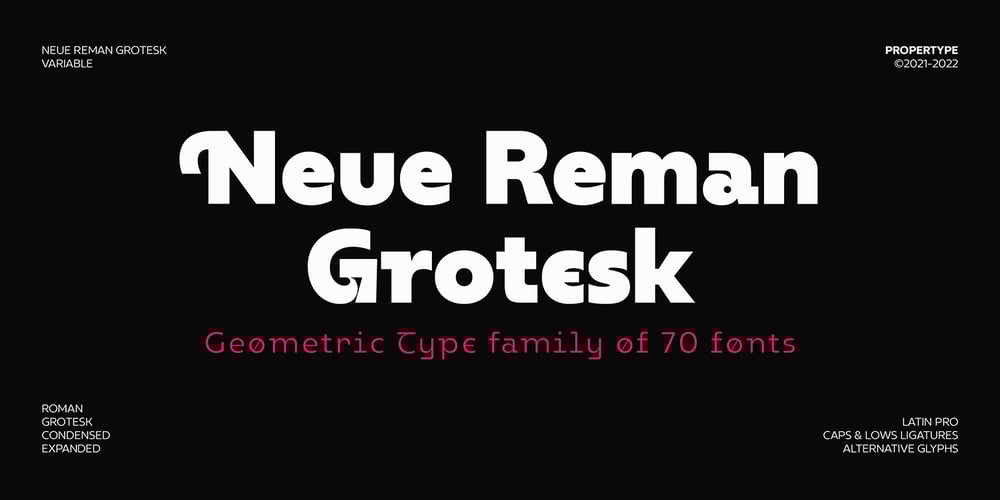
Neue Reman Gt Font Family was designed by Nadia Auliana and published by Propertype. Neue Reman Gt contains 71 styles and family package options. Neue Reman GroteskIt has 70 font styles in total family + 1 Variable.This typeface is designed to be used very practically. Each style can be changed easily. Has a variety of alternative letters that can be selected to make typography designs more attractive.The family comes in 7 weights with matching italics + Variable Font File and includes multilingual latin pro characters.1. Extra Light – Condensed – Expanded – Slanted Italic2. Light – Condensed – Expanded – Slanted Italic3. Regular – Condensed – Expanded – Slanted Italic4. Medium – Condensed – Expanded – Slanted Italic5. Semi Bold – Condensed – Expanded – Slanted Italic6. Bold – Condensed – Expanded – Slanted Italic7. Heavy – Condensed – Expanded – Slanted ItalicNeue Reman Grotesk contains 750 glyphs, a Latin Pro Fonts. This is the second version of Neue Reman Family. Complete with Stylistic Alternates, Stylistic Set, Caps Swashes Letter, Standard Ligatures, Discretionary Ligatures, Tabular Figures, Proportional Figures, Superscript, Subscript, Scientific Inferiors, Fractions, Ordinals, Arrows and a variety of figures and fractions. Neue Reman typeface suitable to use in multipurpose projects such as on websites, systems, printing, embedding, servers, screens, display, digital-ads, branding, logos, titles, headlines, teks, and everything else.Need something else? Get in touch with us on propertype.foundry@gmail.comThank you